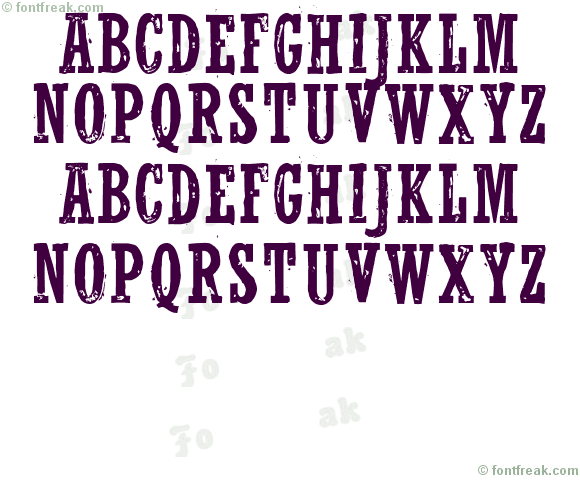
WolfredNelson Regular
About WolfredNelson Regular
WolfredNelson Regular by Cloutierfontes is an eye-catching display font that combines a unique vintage aesthetic with a modern twist. This typeface falls under the decorative category and is characterized by its bold, rugged appearance. The stroke weight is consistent yet has a slight roughness that gives it an authentic, handcrafted look. The letters exhibit moderate contrast, enhancing their visibility while maintaining a cohesive style. The spacing between characters is thoughtfully designed, allowing for readability without sacrificing personality.
This font is versatile and can be used in various applications. It is perfect for designing striking movie posters that demand attention or crafting unique restaurant menus that convey a sense of character. The bold and distinctive nature of WolfredNelson Regular makes it an excellent choice for branding projects, particularly for small businesses looking to establish a memorable identity. Additionally, it can be utilized effectively in promotional materials, such as flyers and banners, where a strong visual impact is essential. Graphic designers and content creators will find this font particularly appealing for projects that require a touch of flair and originality.